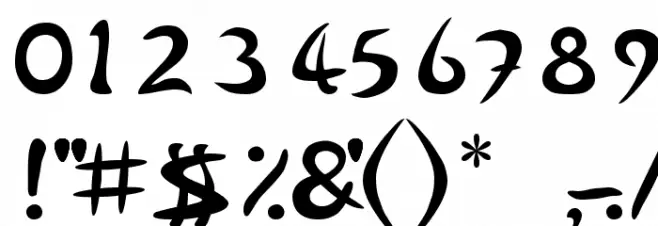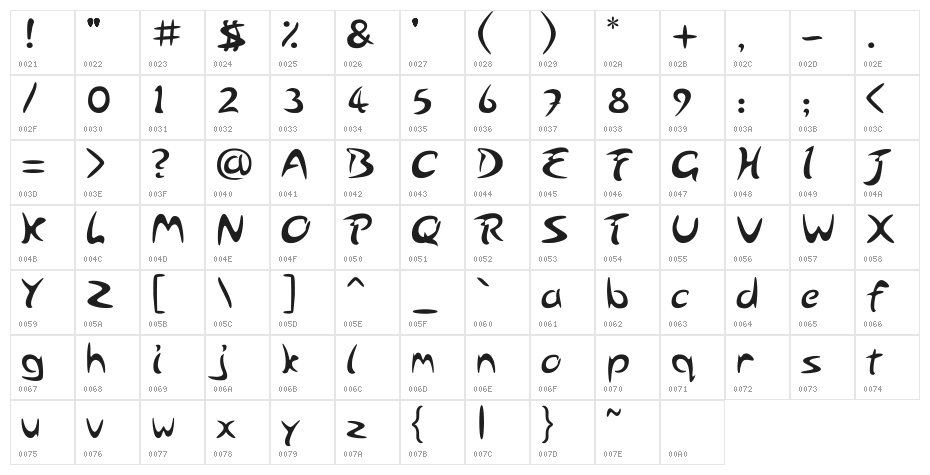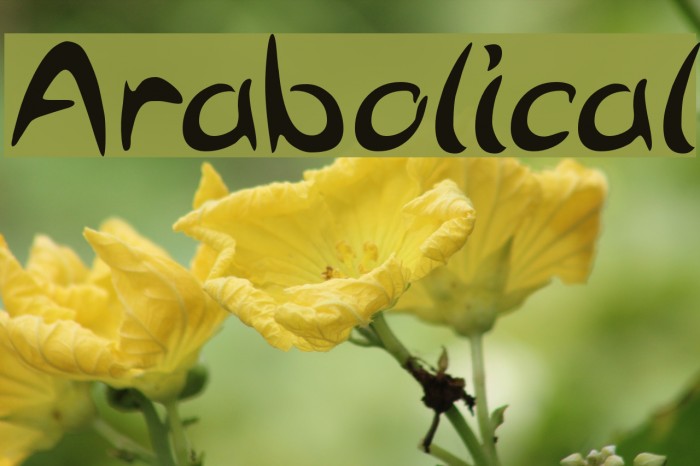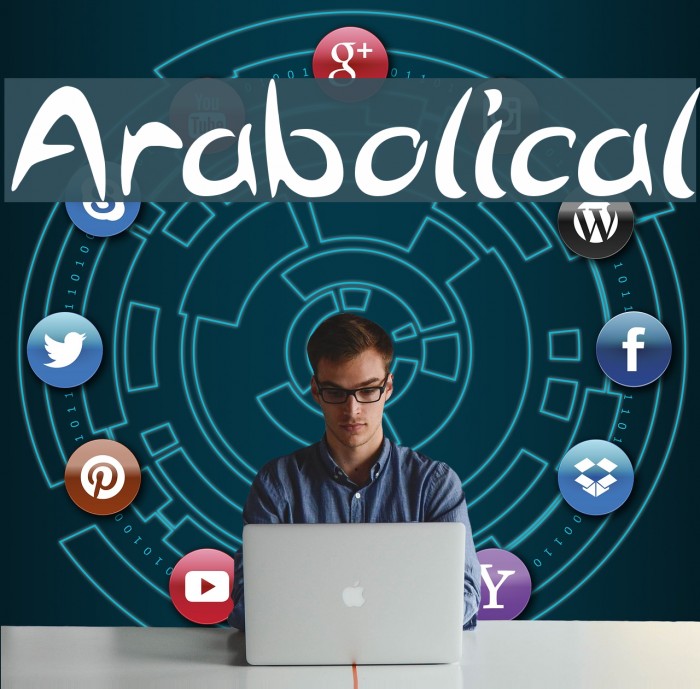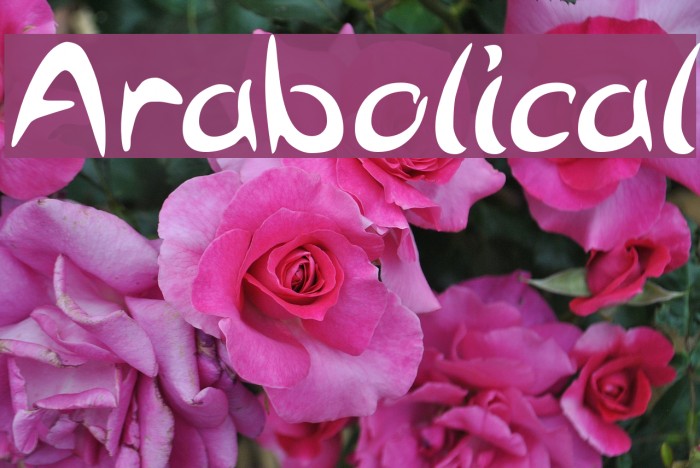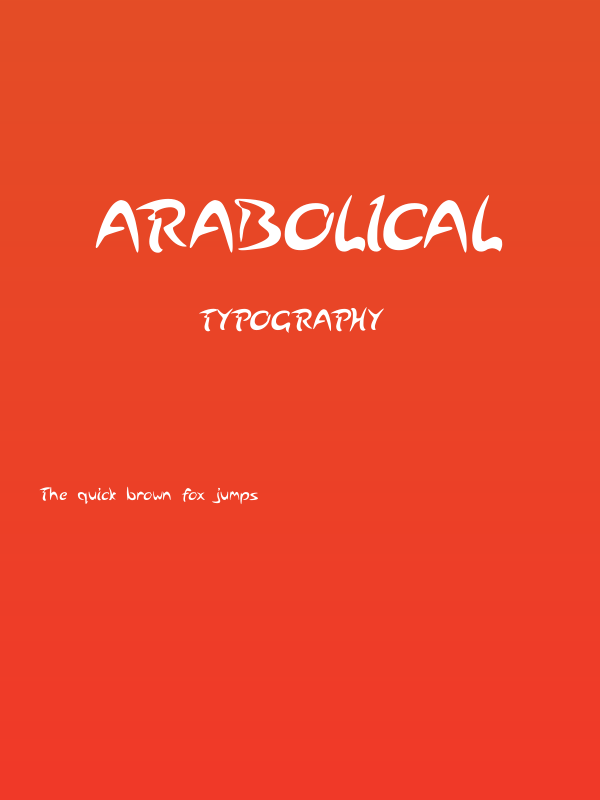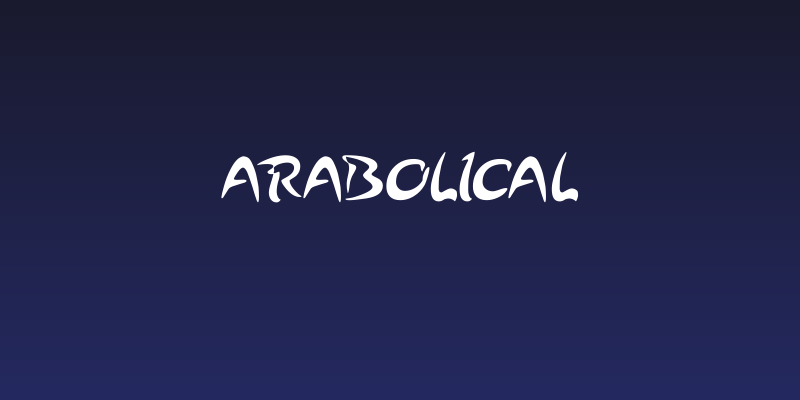
Arabolical Font
Arabolical Description
This font exhibits a bold and dynamic style with a strong sense of movement and energy. The characters are designed with a brush-like appearance, featuring thick and thin strokes that create a sense of fluidity and rhythm. The uppercase letters are particularly striking, with exaggerated curves and angles that give them a unique and artistic flair. The lowercase letters maintain this expressive style, offering a cohesive look throughout the typeface. The numbers and special characters are equally bold and stylized, making them stand out in any design. This font is perfect for projects that require a touch of creativity and boldness.
Proposed ProjectsIdeal for creative projects such as posters, logos, branding, and headlines that require a bold and artistic touch.